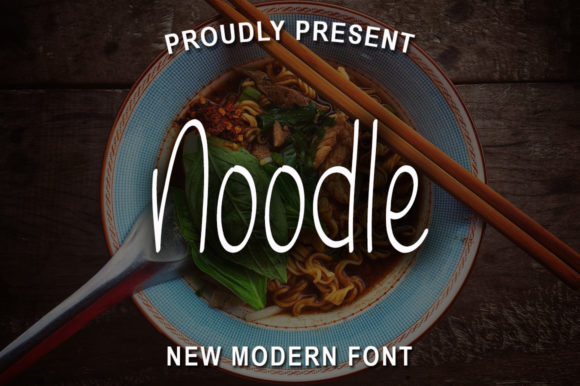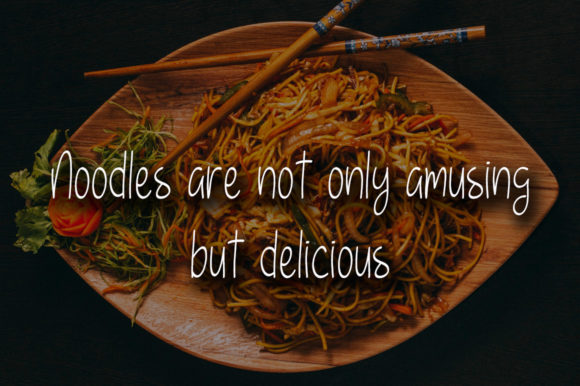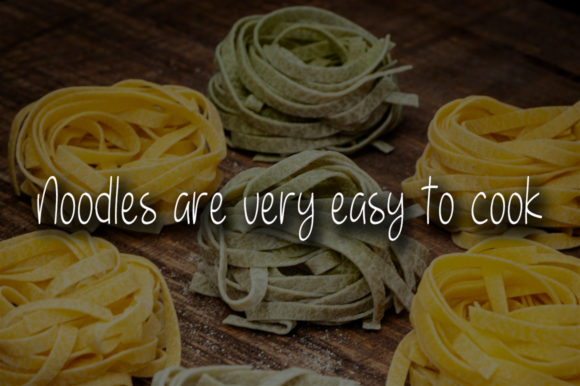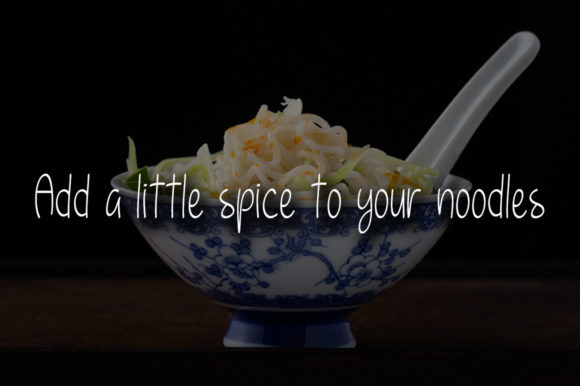
Noodle Font
About Noodle Font
Noodle is a sweet and friendly handwritten font. Its natural and unique style makes it incredibly fitting to a large pool of designs. The only limit is your imagination!